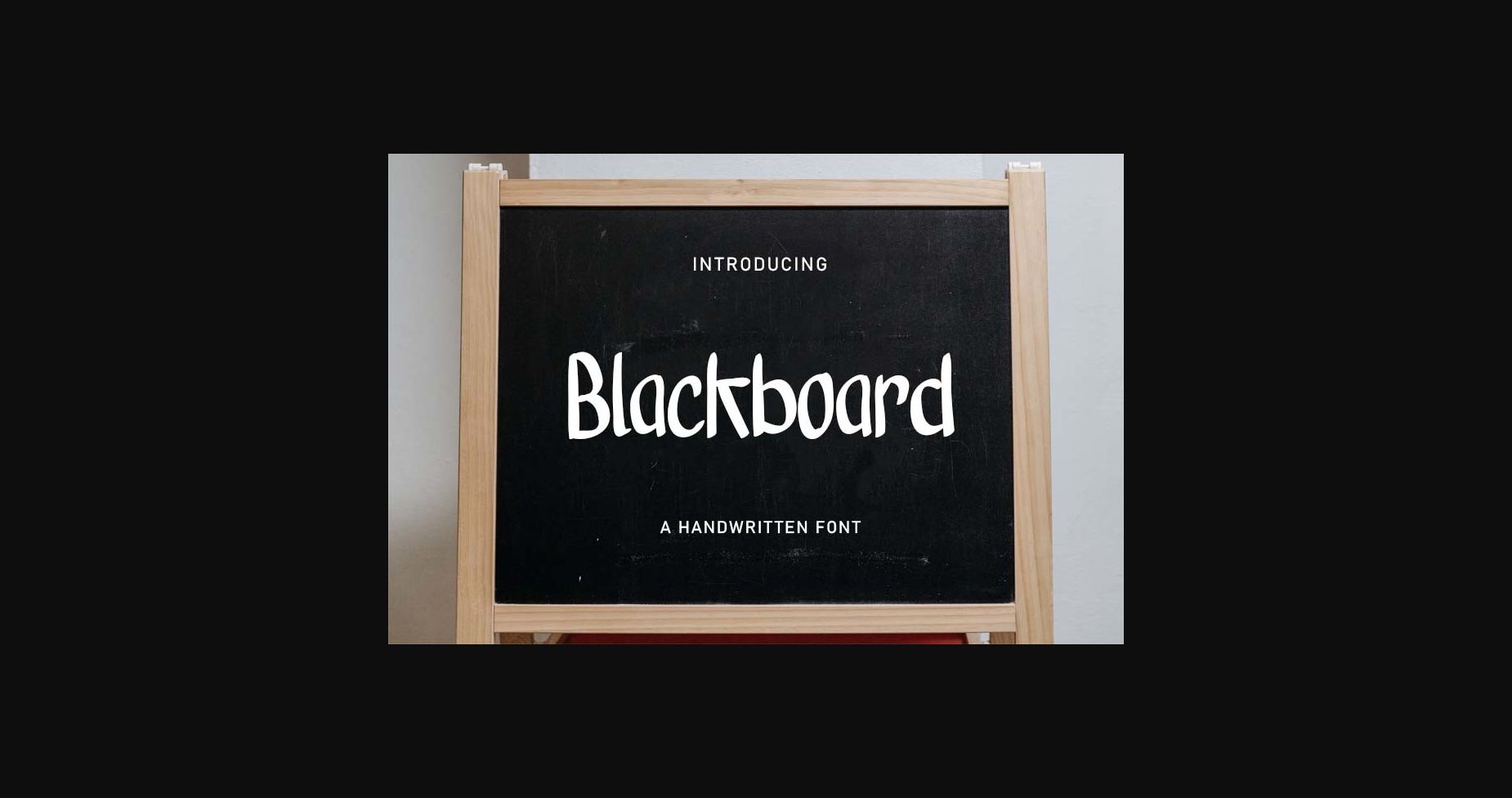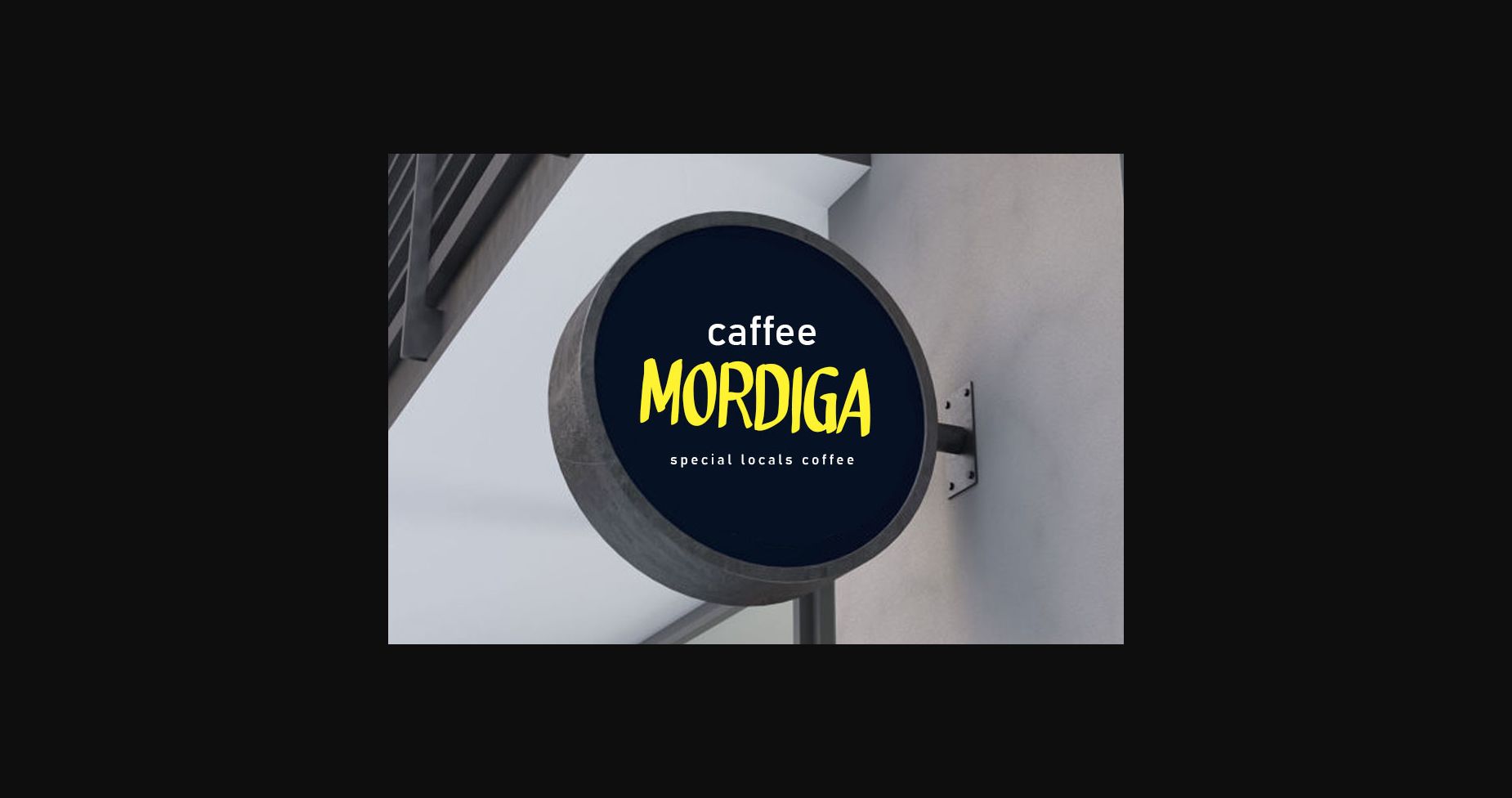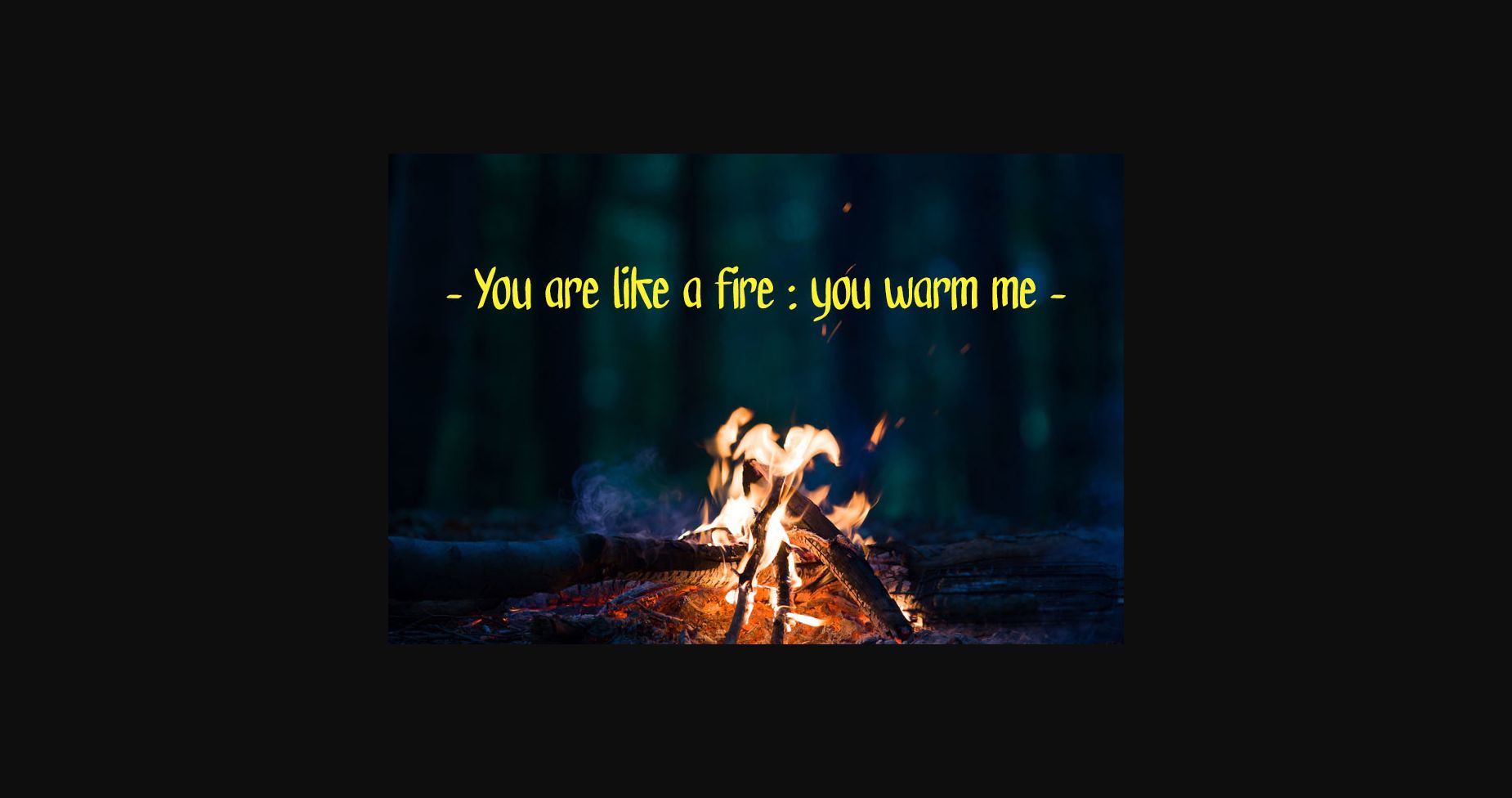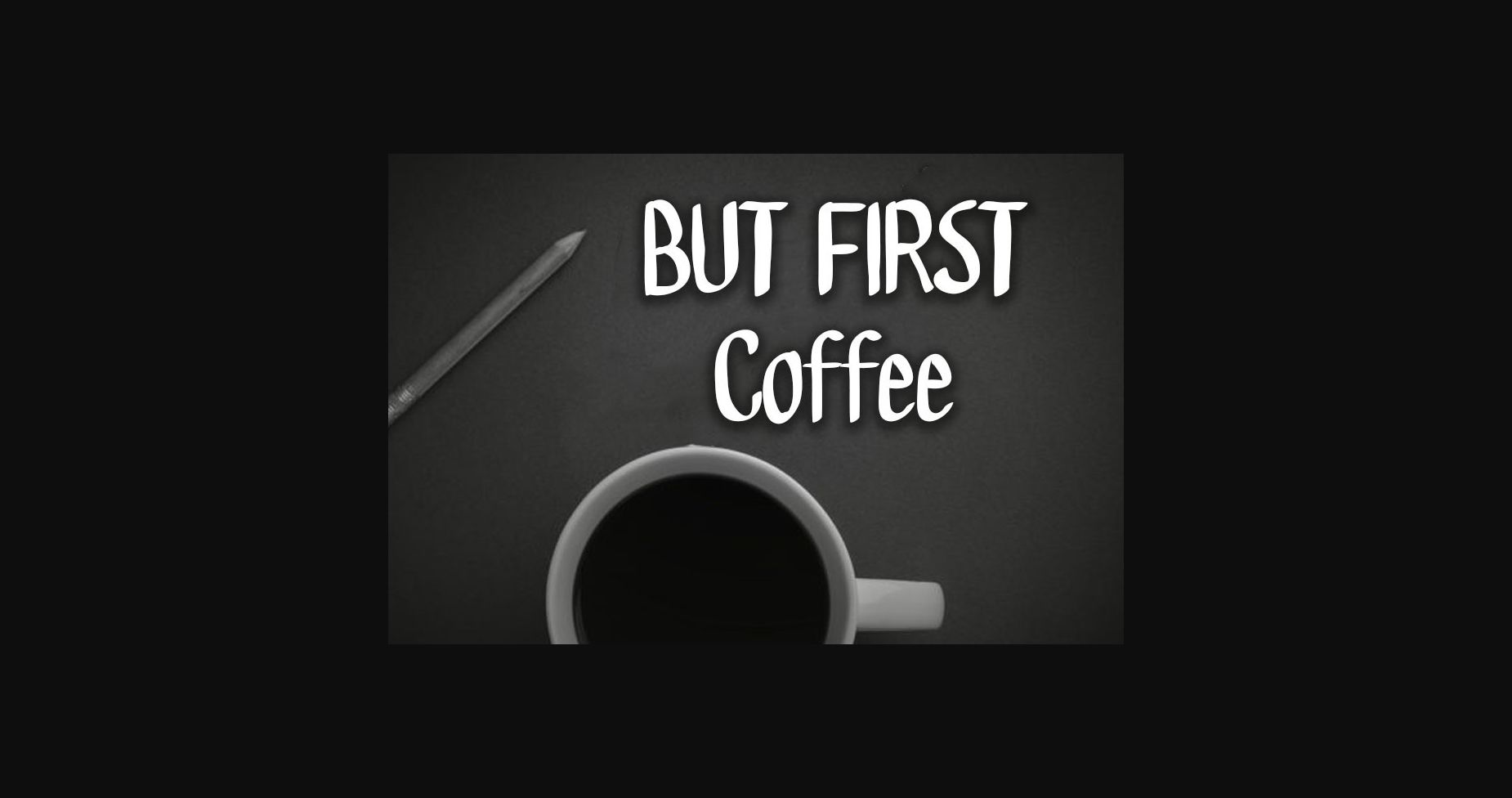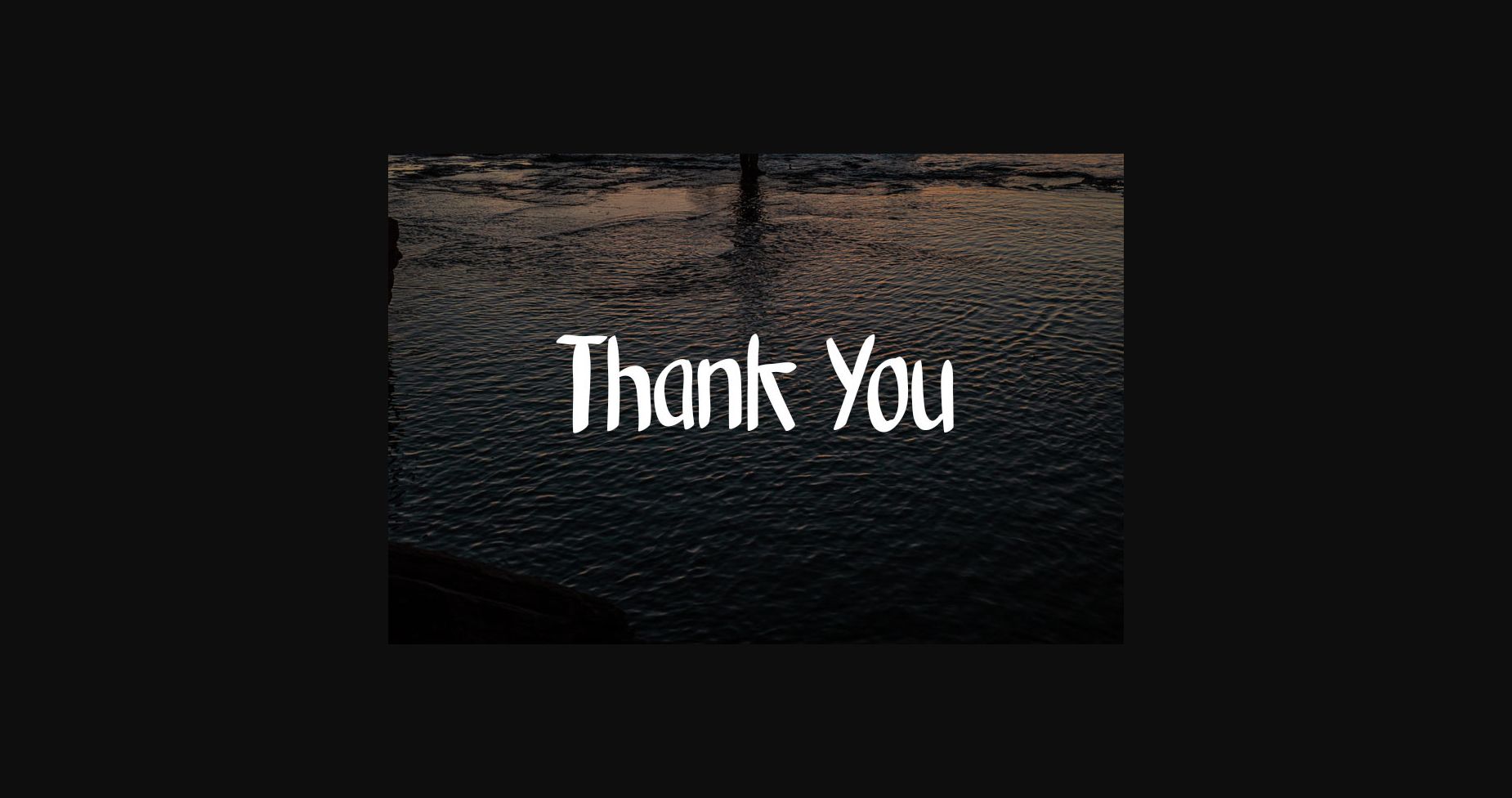
HomeSans Serif FontsBlackboard Font Sans Serif Fonts Blackboard Font FacebookXPinterestWhatsApp 1 of 7 ... Blackboard Font Poster 2... Blackboard Font Poster 3... Blackboard Font Poster 4... Blackboard Font Poster 5... Blackboard Font Poster 6... Blackboard Font Poster 7... About Blackboard Font Blackboard is an enchanting handwritten font. This versatile font has a wide spectrum of applications ranging from greeting cards to headlines and is guaranteed to add a romantic feel to your next project! DOWNLOAD NOW People also explored Raffiator Font Rose Blossom Monogram Font Lushyana Font Leaves Wreath Font Charline Font Pumpkin Soup Yellow Quartz Font Muthya Font Wulandari Font 272 0 TagsBlackboard Font Previous articleChristmas Lolipop FontNext articleMary June Font LEAVE A REPLY Cancel reply Comment: Please enter your comment! Name:* Please enter your name here Email:* You have entered an incorrect email address! Please enter your email address here Website: Save my name, email, and website in this browser for the next time I comment. Personal Use Free Loopina Personal Use Free Read more about this font Rothwell Personal Use Free Read more about this font Mini Story Personal Use Free Read more about this font Dakwart Letter Personal Use Free Read more about this font BLOG How to Cut Any Font on Cricut: Convert a Font to SVG (Free) Turn any font into a clean SVG so it cuts crisp on Cricut - a quick 3-step workflow using a free font-to-SVG tool. 5 Fonts That Will Dominate Design Trends in 2026 Top 10 Handwritten Fonts That Elevate Your Designs Best Fonts for T-Shirt Design – Top 2025 Picks